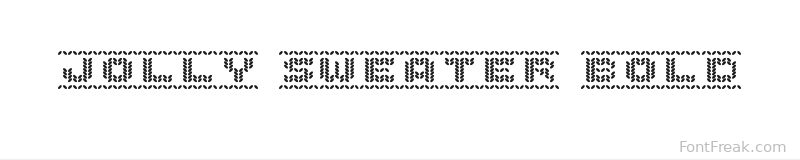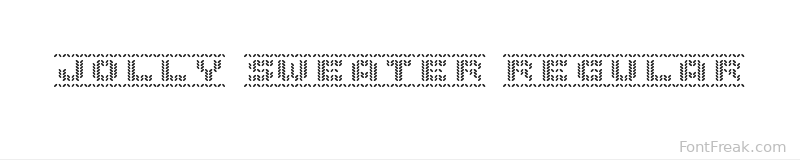
Jolly Sweater Light
Jolly Sweater Regular
Jolly Sweater Bold
About Jolly Sweater Light
Jolly Sweater Light is a unique decorative font that brings a playful and cozy aesthetic to any design project. Created by GGBot, this font is characterized by its charming, knitted texture that mimics the warmth of a beloved sweater. With a light stroke weight and minimal contrast, Jolly Sweater Light offers a soft, approachable look, making it perfect for casual and festive applications. The spacing is well-balanced, enhancing legibility while maintaining a whimsical feel. This font is an excellent choice for a variety of creative uses, including holiday cards, children's book covers, and cozy café menus. Its distinctive style also makes it suitable for branding small businesses, particularly those in the creative or lifestyle sectors, such as artisanal shops and craft boutiques. Graphic designers and content creators will find the Jolly Sweater Light font free download particularly appealing for projects that call for a touch of warmth and personality. Whether you're designing a winter-themed invitation or a relaxed social media post, this font effortlessly adds a friendly vibe. What sets Jolly Sweater Light apart is its ability to evoke feelings of comfort and joy, making it an ideal choice for designs that aim to connect with audiences on an emotional level. The font's unique character and versatile applications ensure it can be used in a variety of contexts, allowing for creativity and expression. Embrace the charm of Jolly Sweater Light in your next project and watch it transform your designs into inviting, memorable pieces that resonate with your audience.